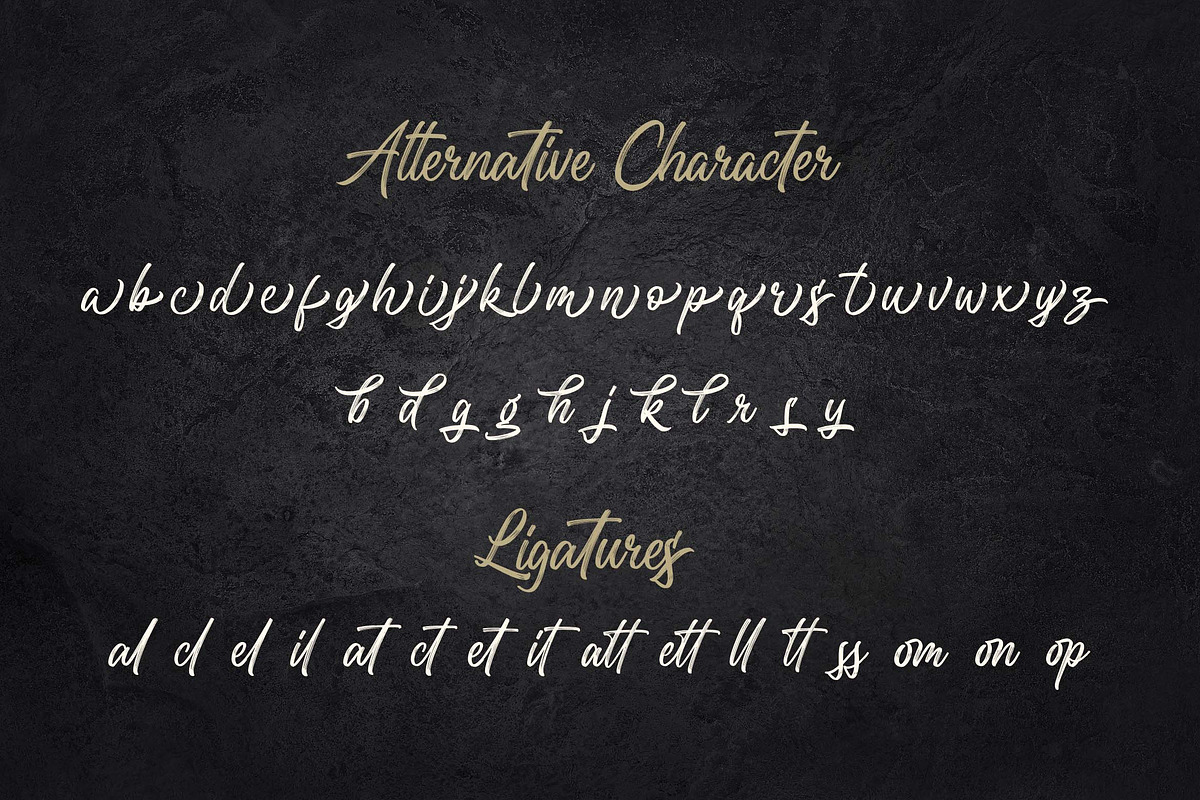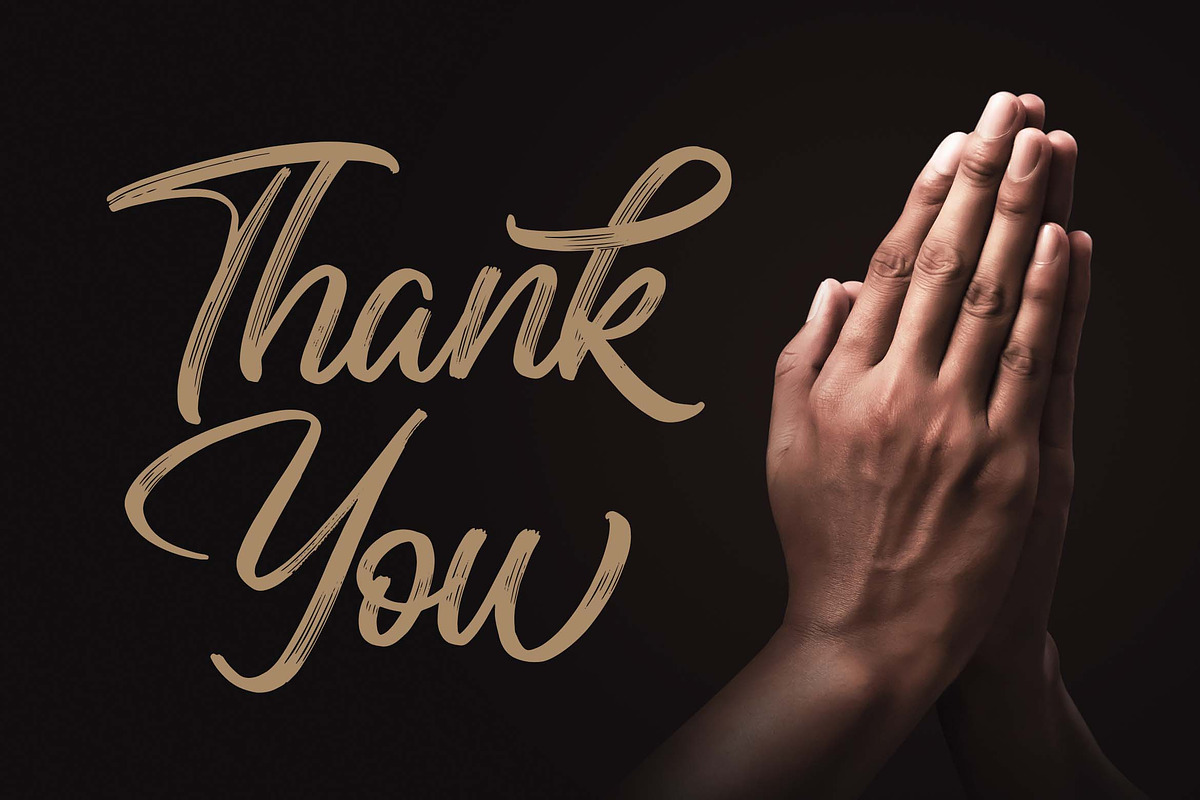
Introducing of our new product the name is Rough Letterline Authentic Brush Font. Rough Letterline inspired by brush calligraphy style this font is a fun theme very good for display, tshirt design, craft, quote sign, logotype and etc
MULTILINGUAL ACCENT :
ØÆøæ¢ÐŒœÁĂÂÀÄĄÅÃǼĆČÇĈĊĎÉĔĚÊËĖÈĘĞĜĢĠĤÍĬÎÏİÌĮĨĴĶĹĽĻĿŃŇŅÑÓŎÔÖÒŐǾÕŔŘŖŚŠŞŜȘ ŤŢÚŬÛÜÙŰŲŮŨẂŴẄẀÝŶŸỲŹŽŻáăâäàąåãǽćčçĉċďéĕěêëėèęğĝģġĥíîïìįĩĵķĺľļŀńʼnňņñóŏôöòőǿõŕřŗśšşŝșťţ ŭûüűùųůũẃŵẅẁýŷÿỳźžż